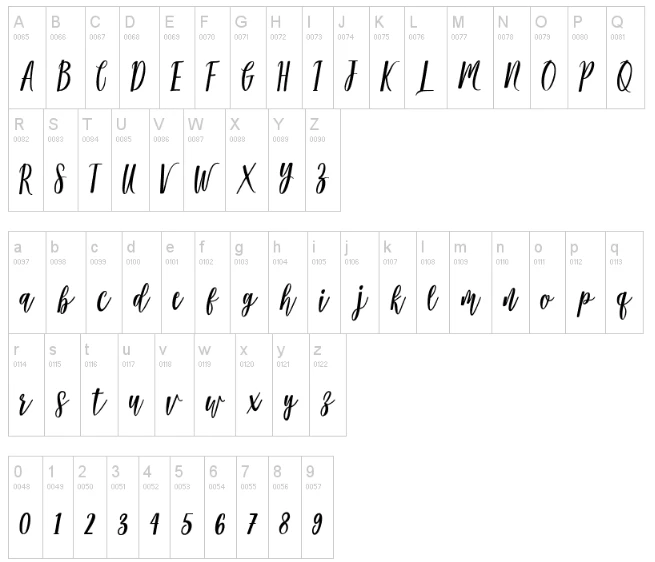
Modena is a moderate handwritten and script typeface. Malindo Creative created and shared the Font. This Font features over 50 ligatures and alternates for each letter to make everything look completely hand-done. The Font seems fantastic when tracking is set to 220 and when it is set to 0! 6 Logo templates (.psd,.ai, and.eps formats), Web font file (.WOFF), Uppercase, Lowercase Letters with alternates, Numbers, and Punctuation are just a few of the Font’s excellent features.
Modena is a lovely strong script and handwritten typeface perfect for logos, posters, wedding invites, blog articles, social media, and more! I enjoy combining it with layer masks in Photoshop to make it appear like the script goes through the lines.